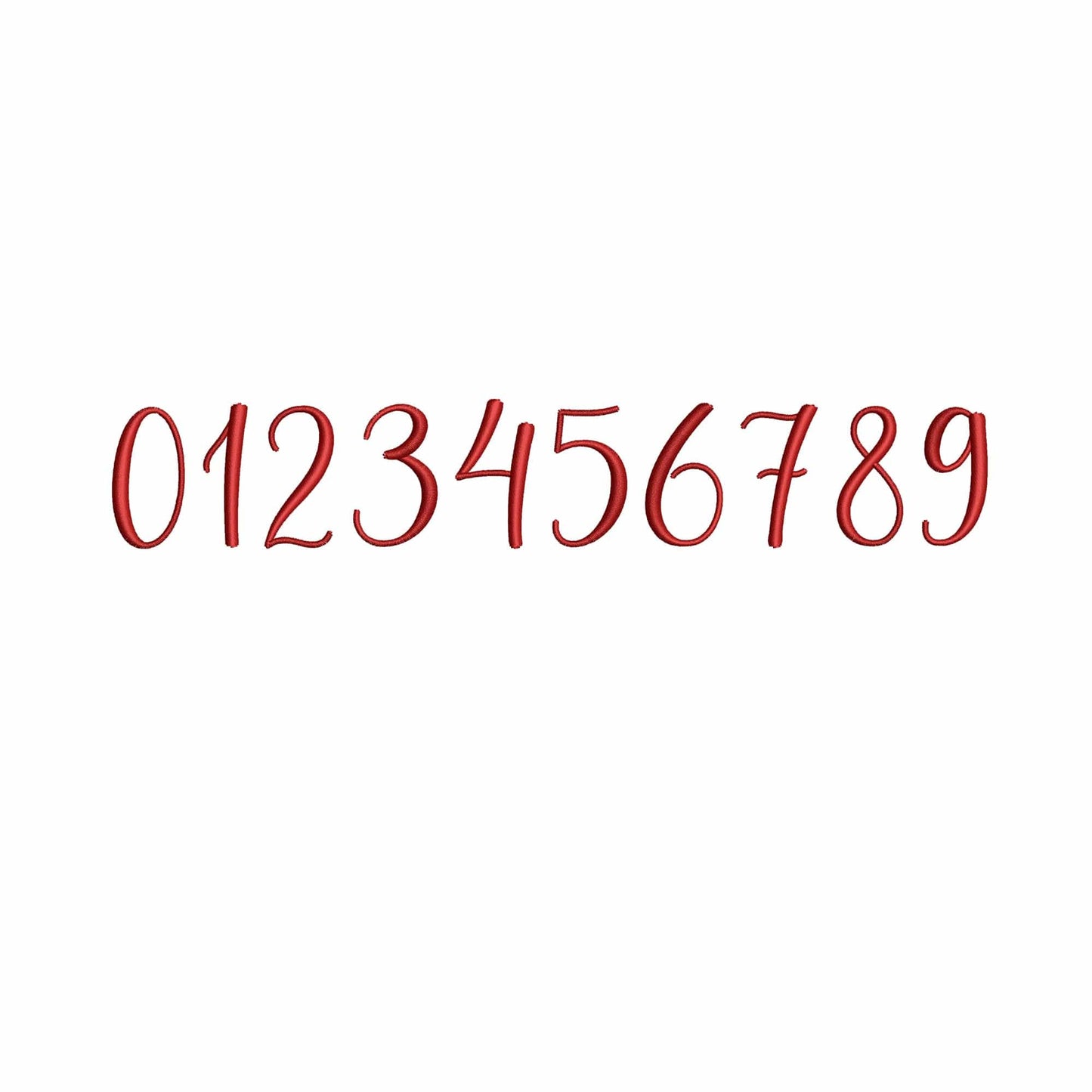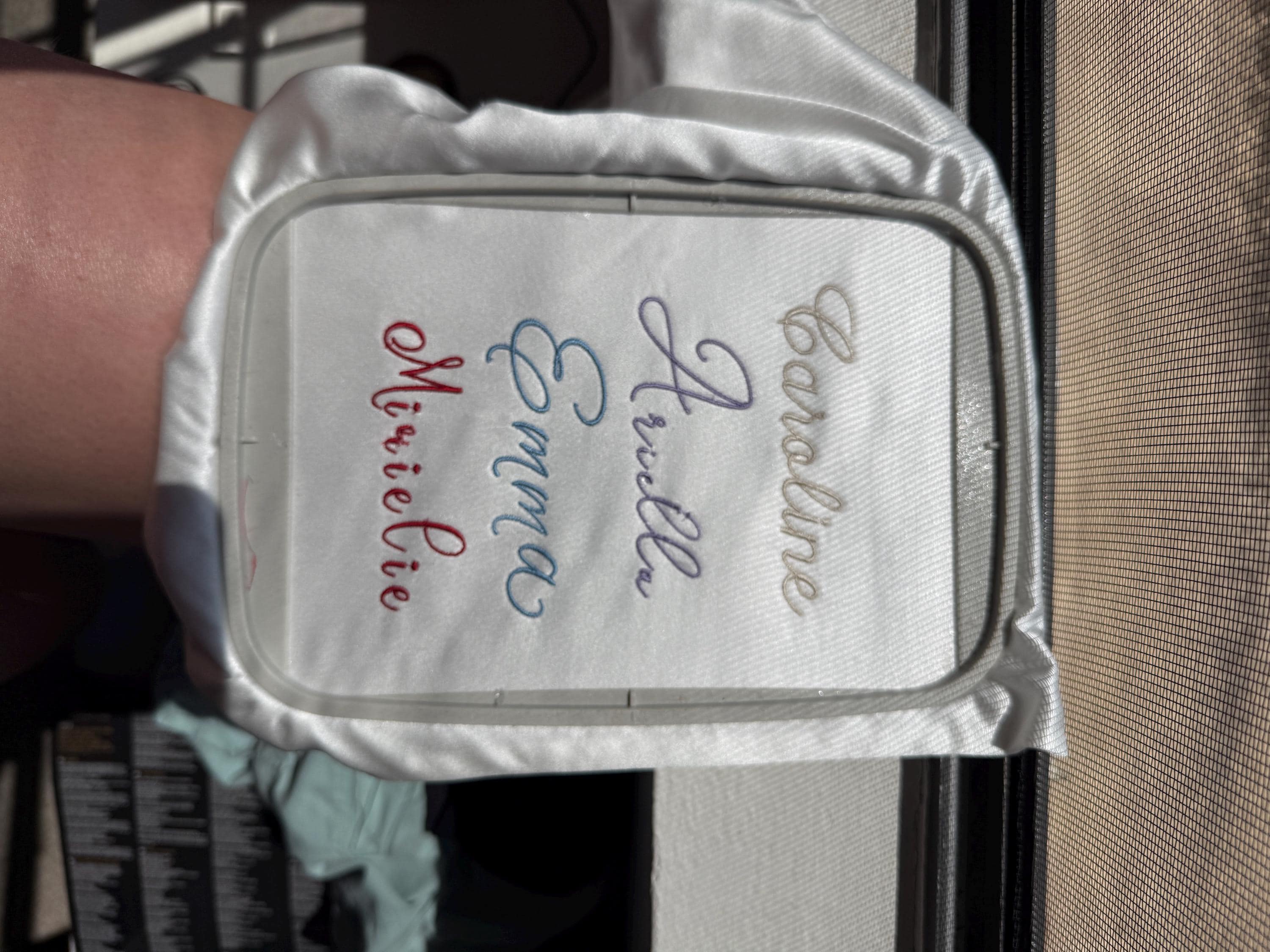
Not sure about this font yet, small letters doesn’t look good on silk
Mielie - Embroidery font
This machine embroidery font works well for names, shirts, towels, gifts, tote bags, and feminine personalized embroidery.
A useful digital download for makers who want soft lettering for everyday custom projects and gift-ready stitching.